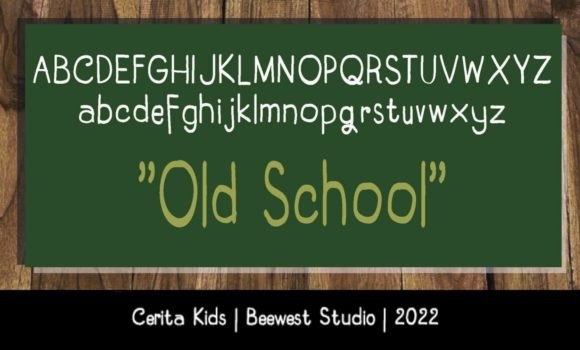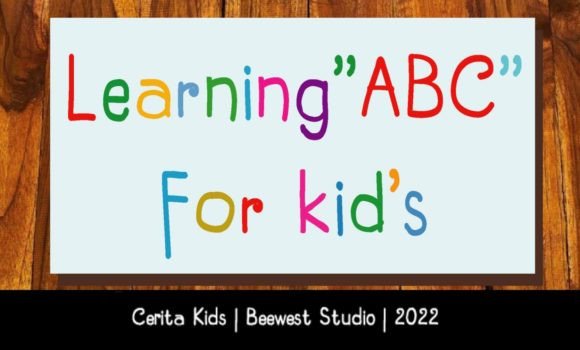
Introduction to Cerita Kids Font
Cerita Kids is Doodle Comic font style.
This font looks relaxed and fun, suitable for comics and Children’s books This font is rendered and done by manual hand drawing that is digitalized as a font so this font is very natural.
Key Features of Cerita Kids Font